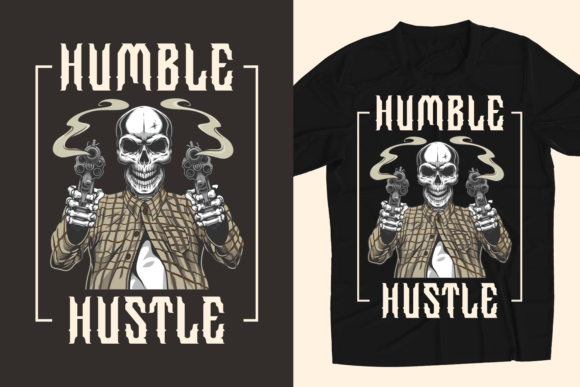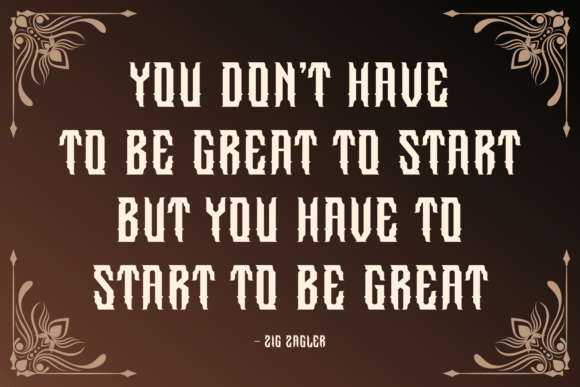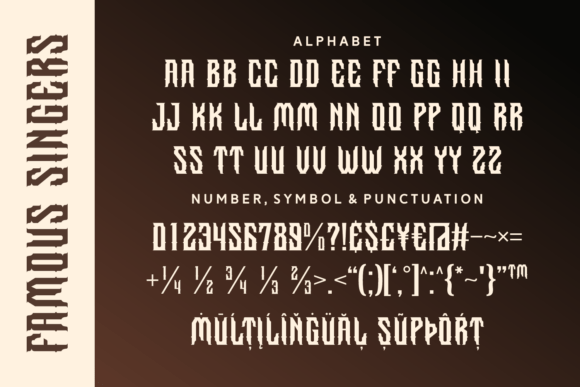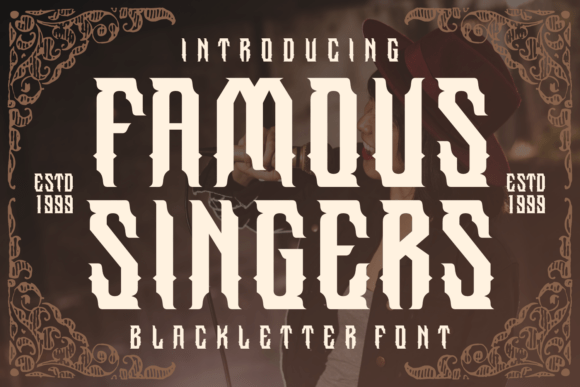
Famous Singers Font: The Ultimate Choice for Music-Inspired Designs
Are you a designer or crafter looking for a font that captures the energy and drama of live music and old-school posters? Look no further than the Famous Singers Font, a bold and modern blackletter font designed to make a statement. With its tall, edgy strokes and vintage-inspired corners, this font is perfect for concert posters, music merchandise, artist branding, and any design related to pop culture and entertainment.
The Inspiration Behind Famous Singers Font
The Famous Singers Font is inspired by the classic blackletter fonts of the past, but with a modern twist. Its tall, edgy strokes and vintage-inspired corners give it a unique and distinctive look that’s sure to grab attention. The font’s design is all about performance and impact, making it perfect for designs that need to stand out from the crowd.
Key Features of Famous Singers Font
- Bold and Modern Design: The Famous Singers Font has a bold and modern design that’s perfect for making a statement.
- Tall, Edgy Strokes: The font’s tall, edgy strokes give it a unique and distinctive look that’s sure to grab attention.
- Vintage-Inspired Corners: The font’s vintage-inspired corners add a touch of classic style to any design.
- High-Impact Performance: The font is crafted with performance and impact in mind, making it perfect for concert posters, music merchandise, and other high-energy designs.
Use Cases for Famous Singers Font
The Famous Singers Font is perfect for a wide range of design projects, including:
- Concert Posters: The font’s bold and modern design makes it perfect for concert posters that need to grab attention.
- Music Merchandise: The font’s unique and distinctive look makes it perfect for music merchandise, such as t-shirts, hats, and other promotional items.
- Artist Branding: The font’s bold and modern design makes it perfect for artist branding, including logos, business cards, and other marketing materials.
- Pop Culture and Entertainment Designs: The font’s vintage-inspired corners and high-impact performance make it perfect for any design related to pop culture and entertainment.
Why Choose Famous Singers Font?
There are many fonts to choose from, but the Famous Singers Font stands out from the rest. Here are just a few reasons why:
- Unique and Distinctive Look: The font’s bold and modern design, combined with its vintage-inspired corners, give it a unique and distinctive look that’s sure to grab attention.
- High-Impact Performance: The font is crafted with performance and impact in mind, making it perfect for designs that need to stand out from the crowd.
- Versatility: The font is perfect for a wide range of design projects, from concert posters to artist branding.
Tips for Using Famous Singers Font
Here are a few tips for using the Famous Singers Font:
- Use it as a Statement Piece: The font’s bold and modern design makes it perfect for use as a statement piece in your design.
- Pair it with Other Fonts: The font pairs well with other fonts, so feel free to experiment with different combinations.
- Experiment with Different Colors: The font looks great in a variety of colors, so don’t be afraid to experiment and find the perfect color for your design.
The Famous Singers Font is a bold and modern blackletter font that’s perfect for designers and crafters looking to make a statement. With its tall, edgy strokes and vintage-inspired corners, this font is sure to grab attention and make your design stand out from the crowd. Whether you’re creating concert posters, music merchandise, artist branding, or any other design related to pop culture and entertainment, the Famous Singers Font is the perfect choice.